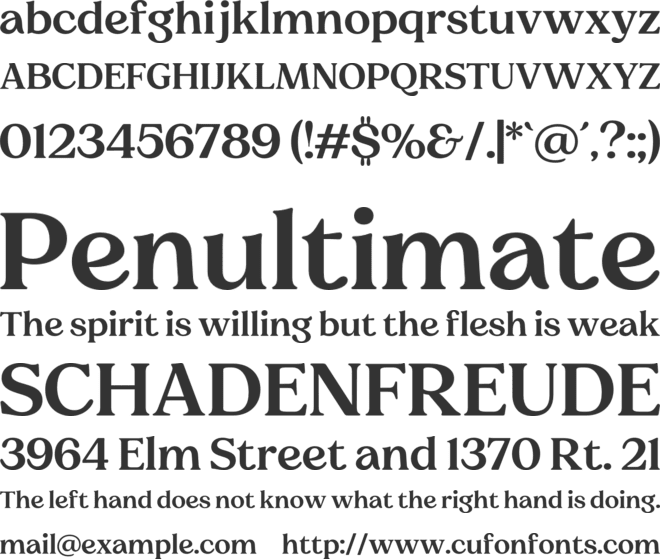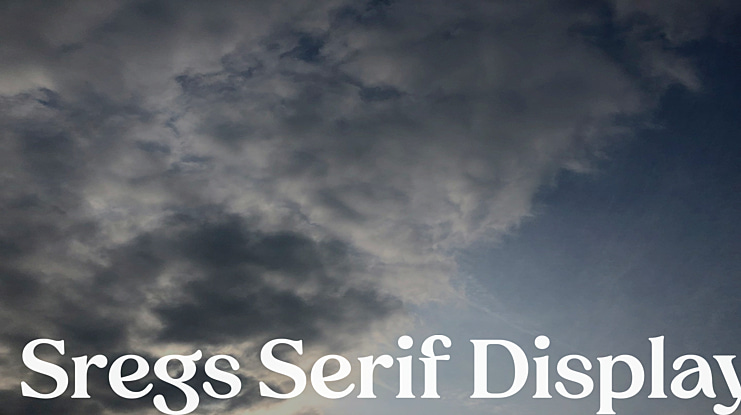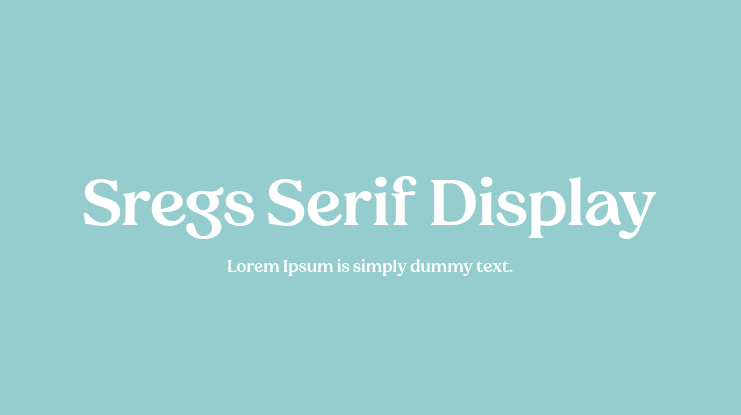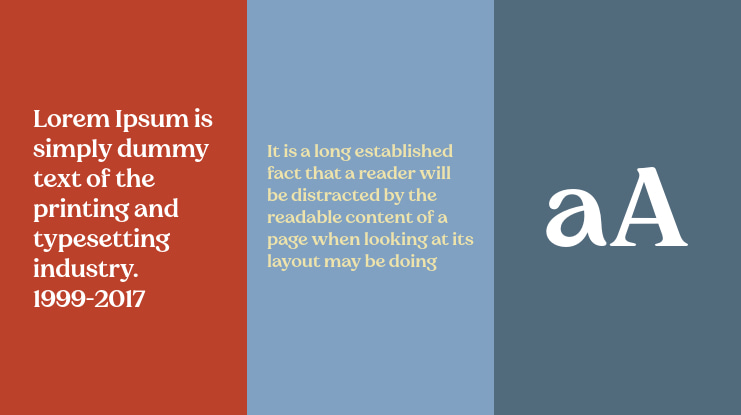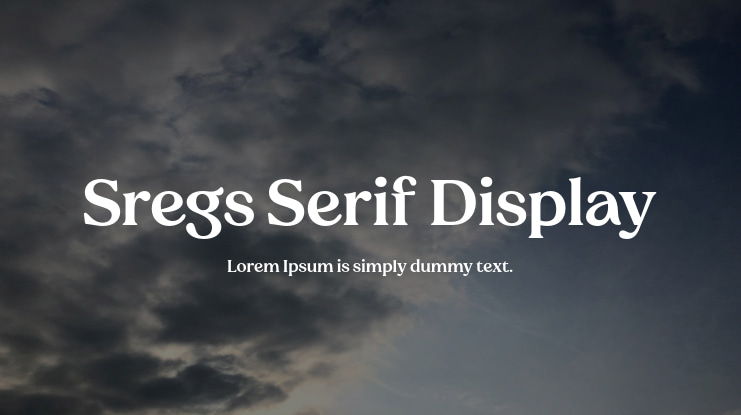
Sregs Serif Display Font
Sarwo Edi, Nadia Auliana
This is an old style serif typeface, its funky, round, hight-contrast and bold shape with a retro touch. Reflexive serifs with soft transitions make the letters easy to read and recognize.
Its 7 weight with 2 style (Standard and Italic) variations provide several options that will help you find the ideal typographic feel for your project. Made for use in branding projects, large-scale printing such as billboards, signboards, titles, headlines, writing on short paragraphs, books title, page titles, taglines, websites, apps, logos, etc.
Sreg's Serif Display Family
Propertype Foundry